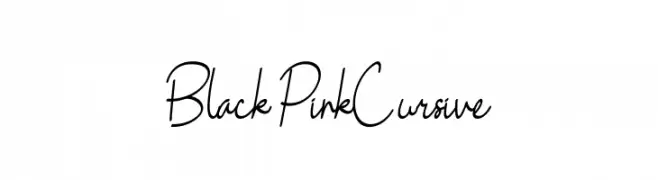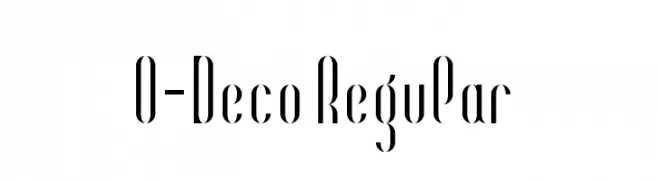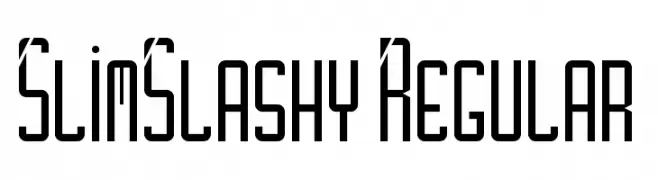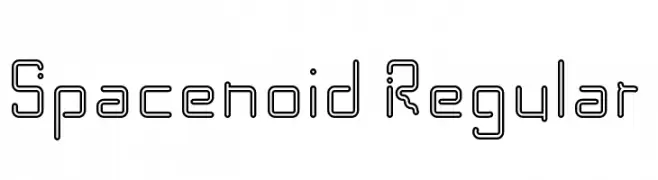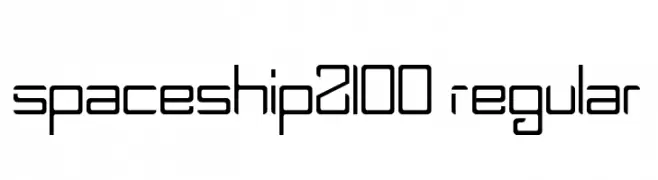
A geometric Art Deco font with sharp angles and smooth curves.
A geometric, pixelated font with a futuristic and decorative style.
A futuristic, geometric font with hollow, outlined letterforms and circular cutouts.
A sleek, modern font with elongated, narrow characters and sharp edges.
A digital seven-segment display-inspired font with a geometric, technical look.
A bold, pixelated font with a retro gaming vibe.
A futuristic, geometric font with clean lines and a modern aesthetic.
A modern, dotted font with a digital, pixelated style.
A playful and elegant cursive font with fluid, connected letterforms.